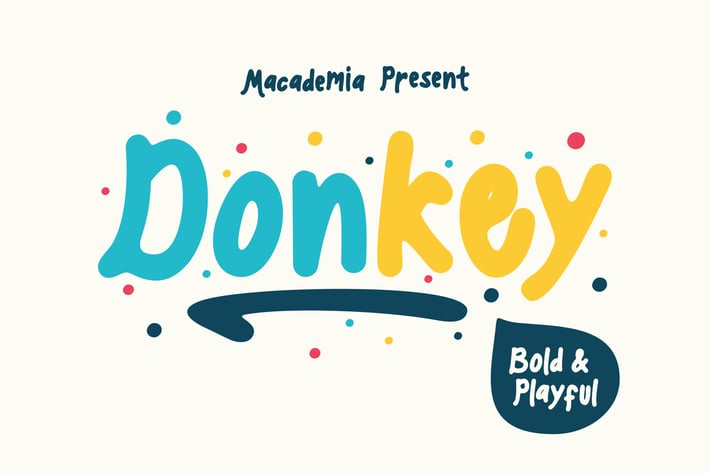
Donkey - Playful Font
Donkey is perfect to use for Logotype, Letterhead, Poster, Apparel Design, Label and etc.
The alternative characters were divided into several features such as Stylistic Alternates and Ligature.
- All Alternates
- Standard Ligatures